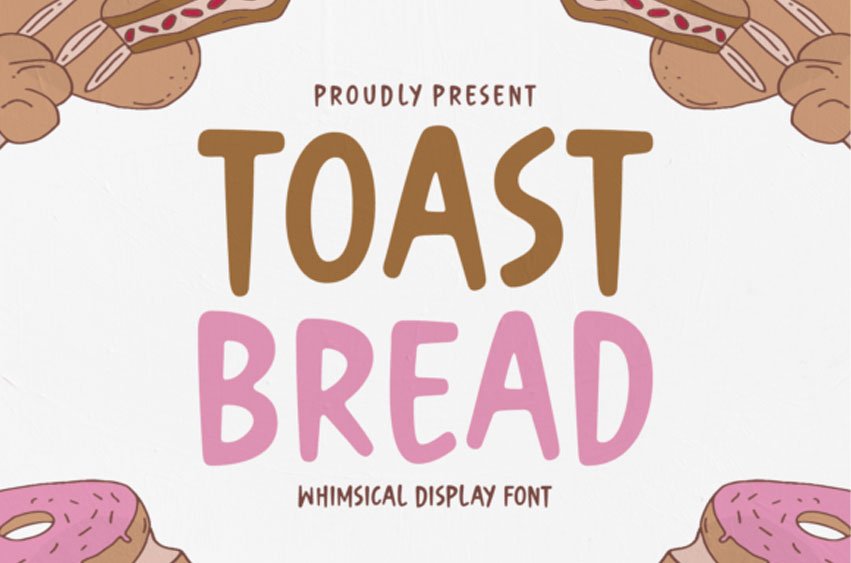
Toast Bread Font is a whimsical display font characterized by its playful and fun design, evoking a sense of lightheartedness and creativity. This typeface features quirky, rounded characters that resemble the soft, fluffy texture of toast, making it perfect for projects that require a cheerful and inviting look.
Whether used in branding, invitations, social media graphics, or greeting cards, “Toast Bread” offers a visually appealing and charming typographic solution that brings a smile to any project.